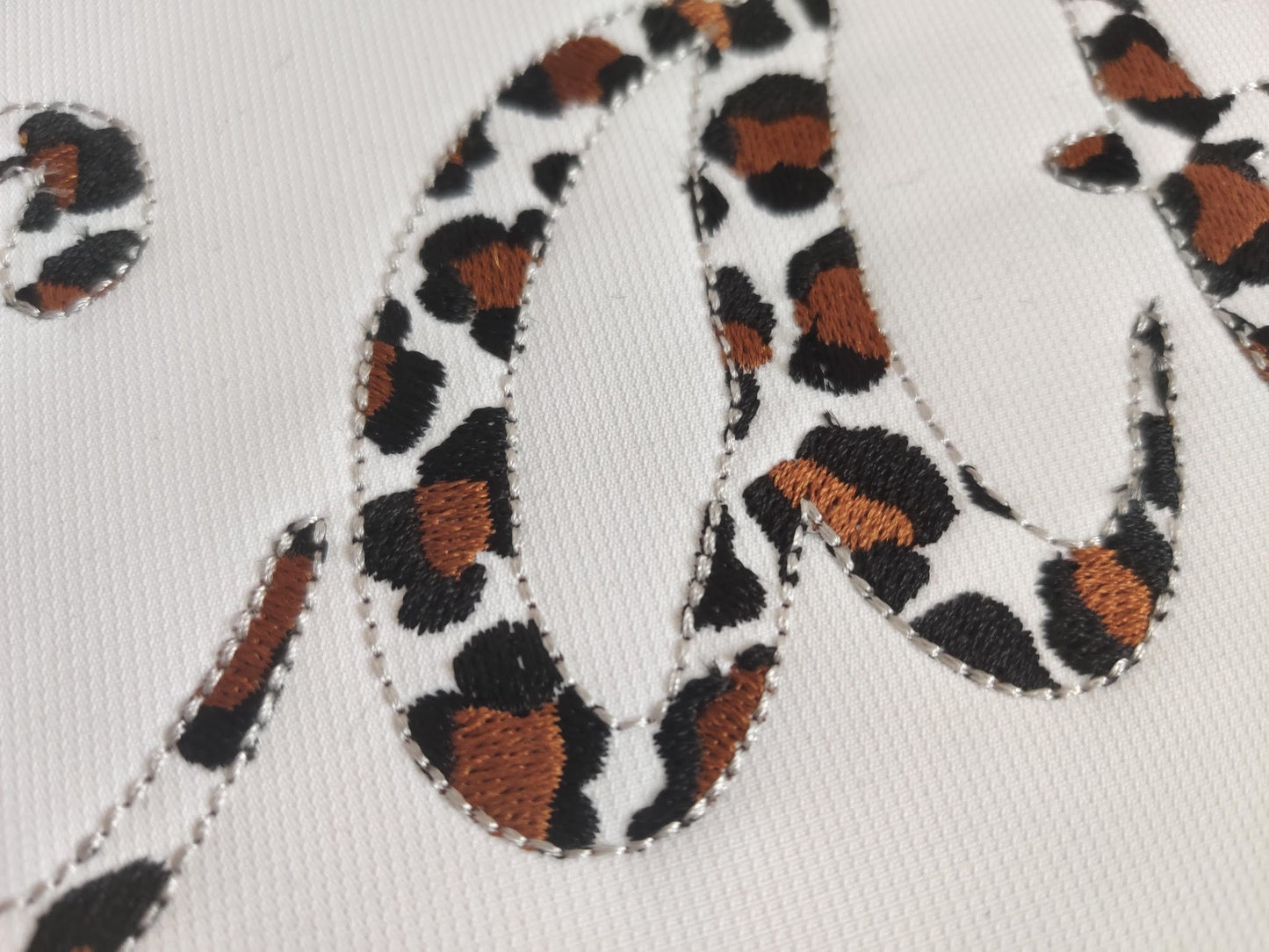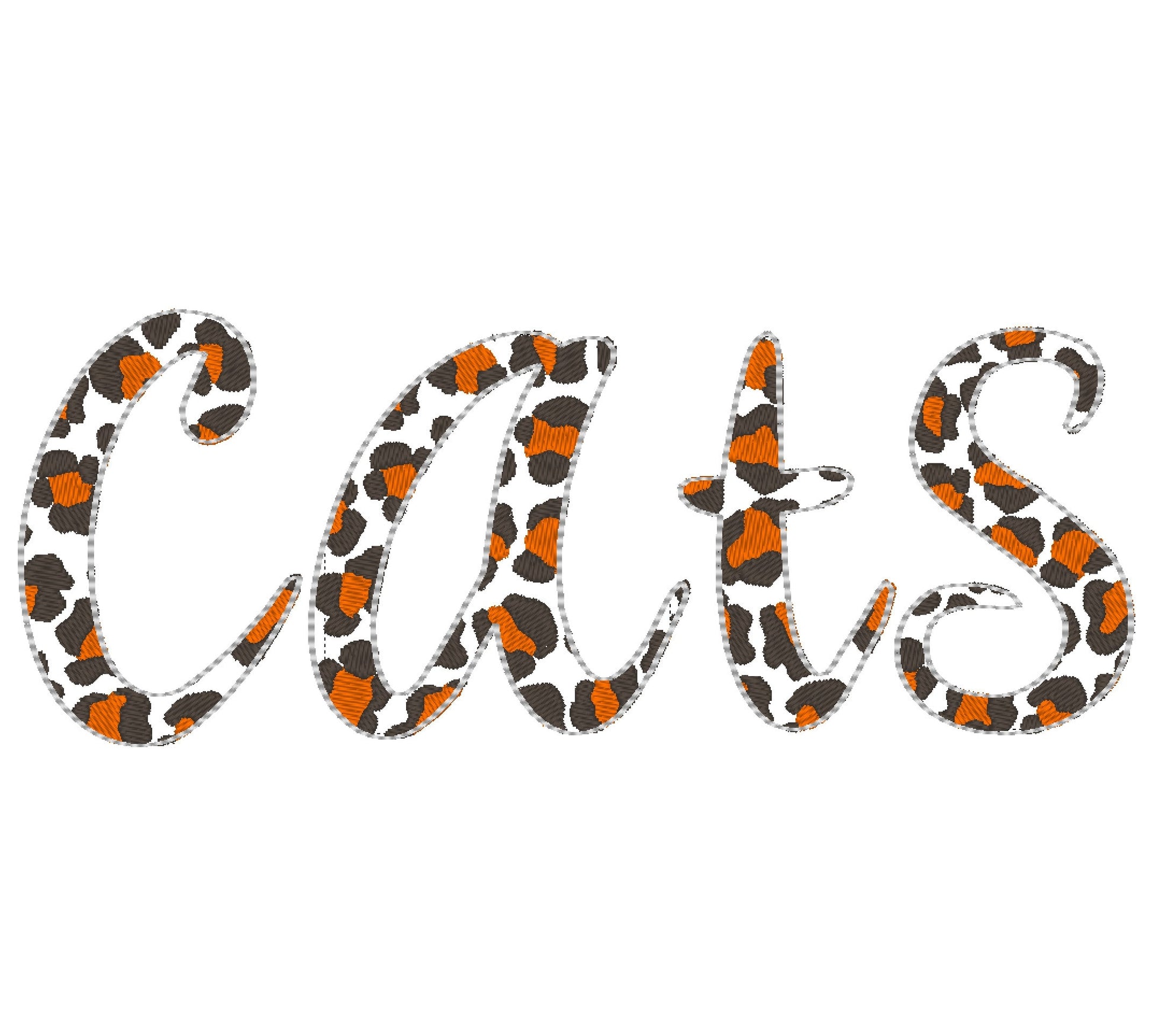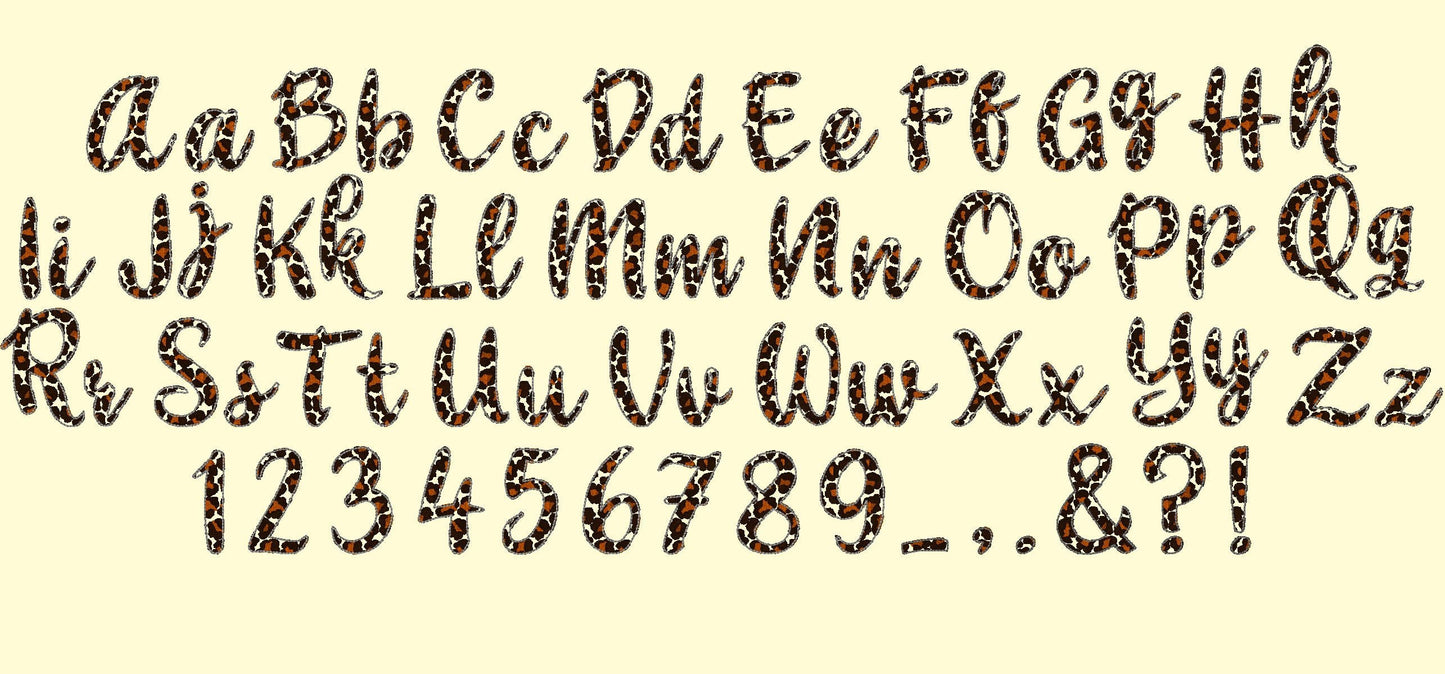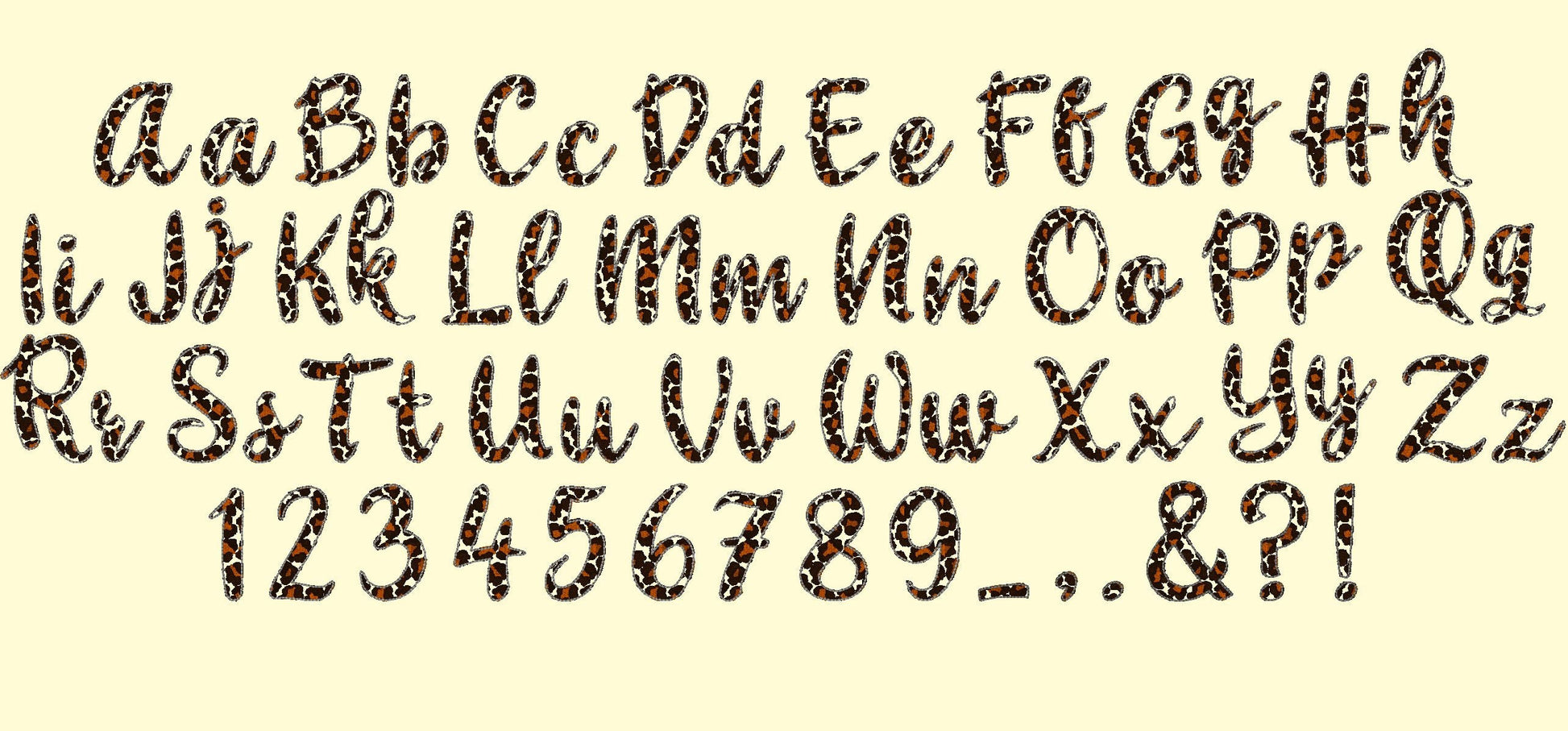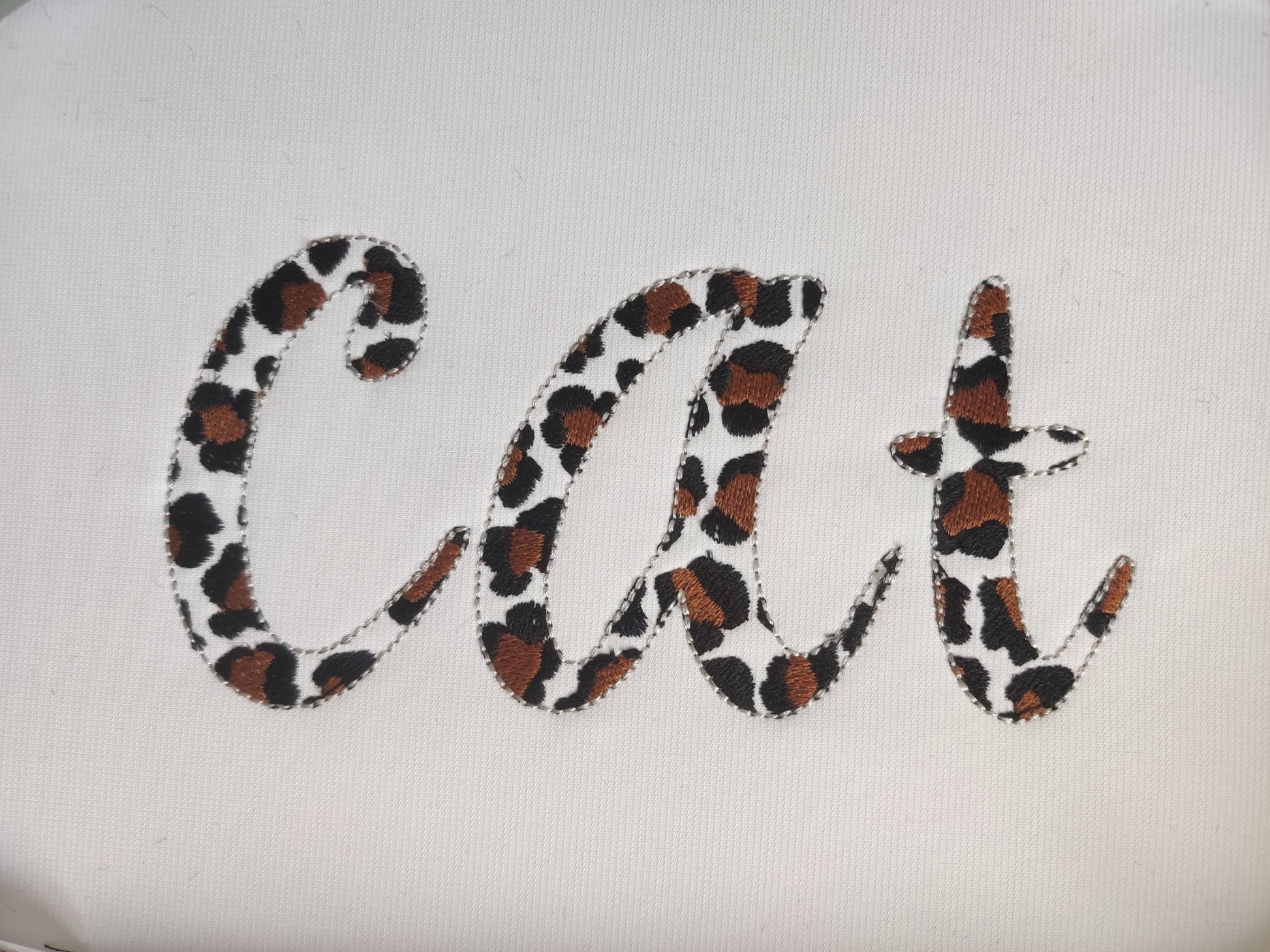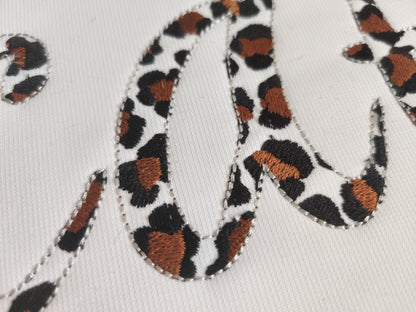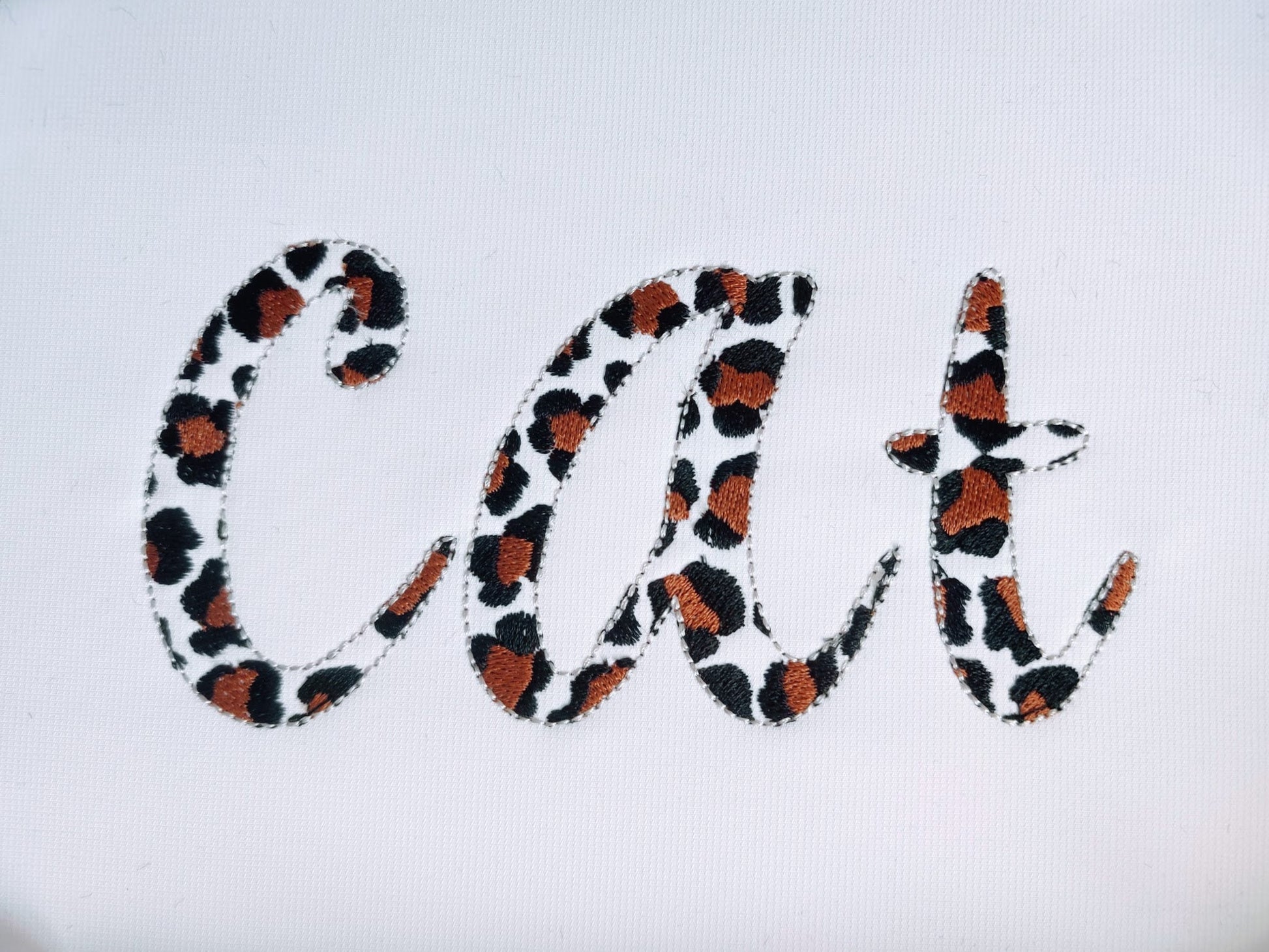
Or click to open the linkA leopard print font in a light, lacy stitch. Fun for names, monograms, shirts and animal print gifts.
The letters come in five sizes: 2, 3, 3.5, 4 and 4.5 inches. A quick stitch with leopard spots inside; the fabric shows through like lace. Includes uppercase and lowercase letters, numbers 0 to 9 and punctuation.